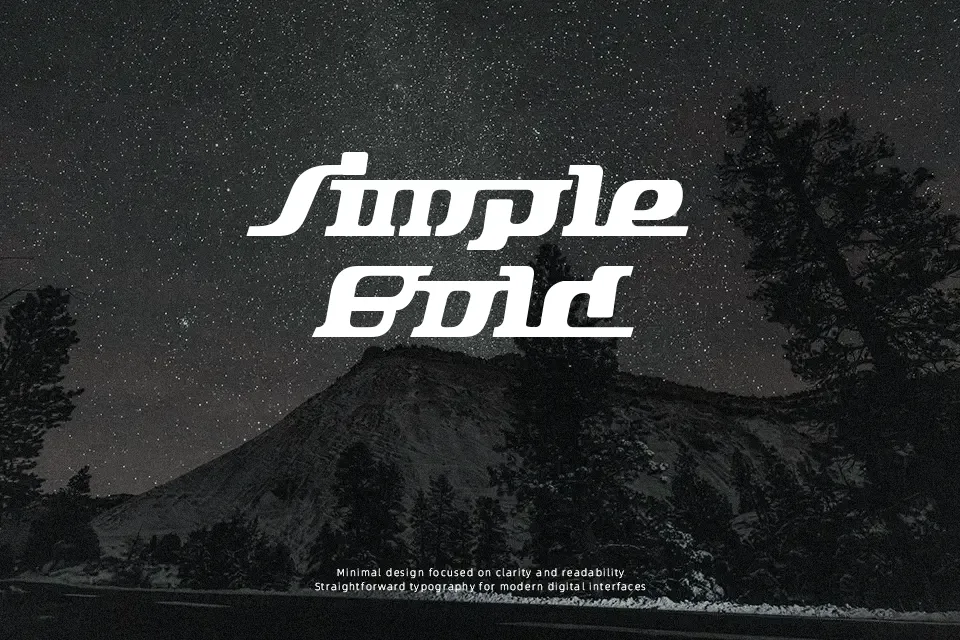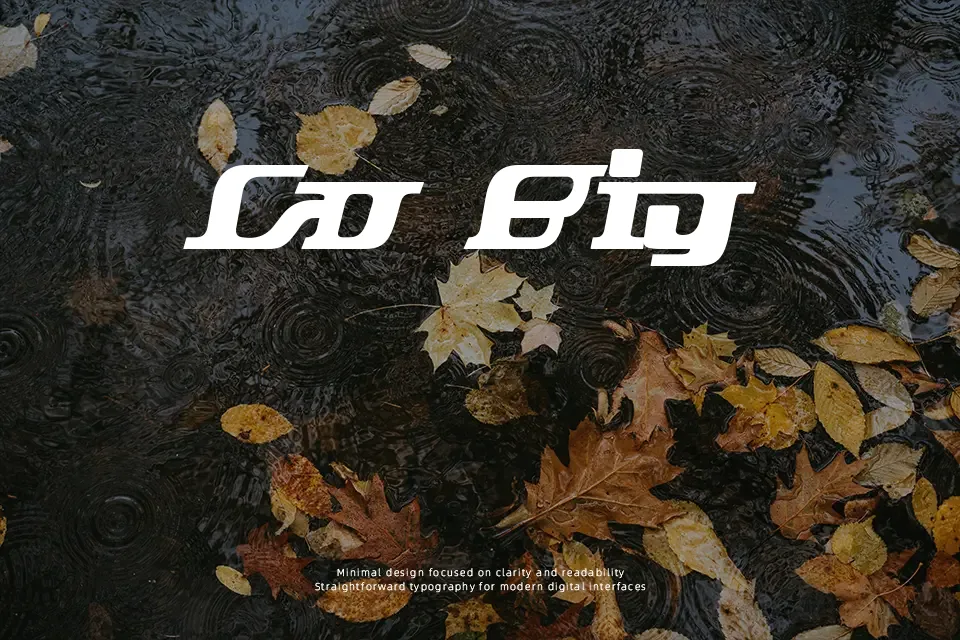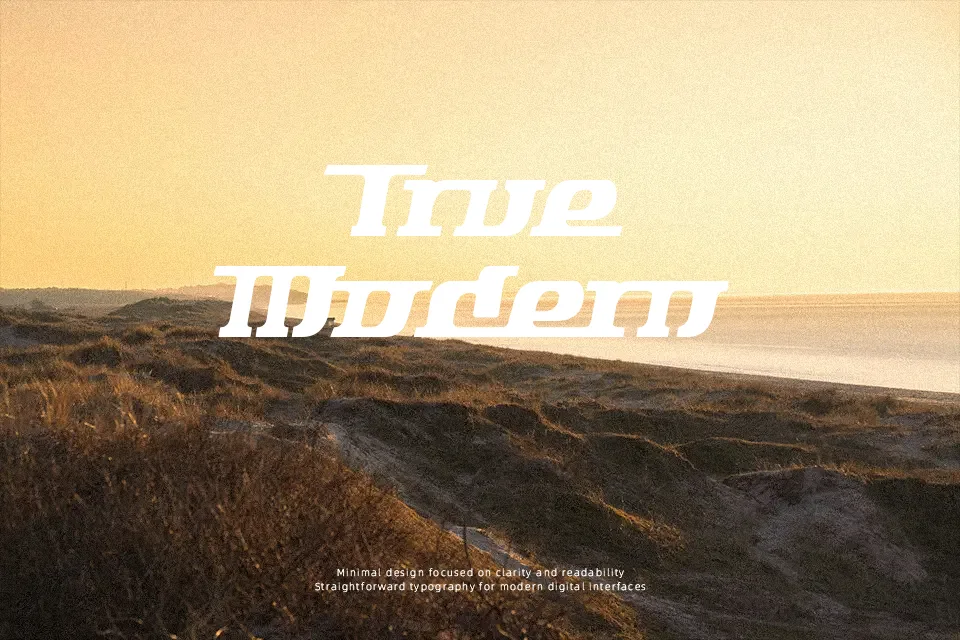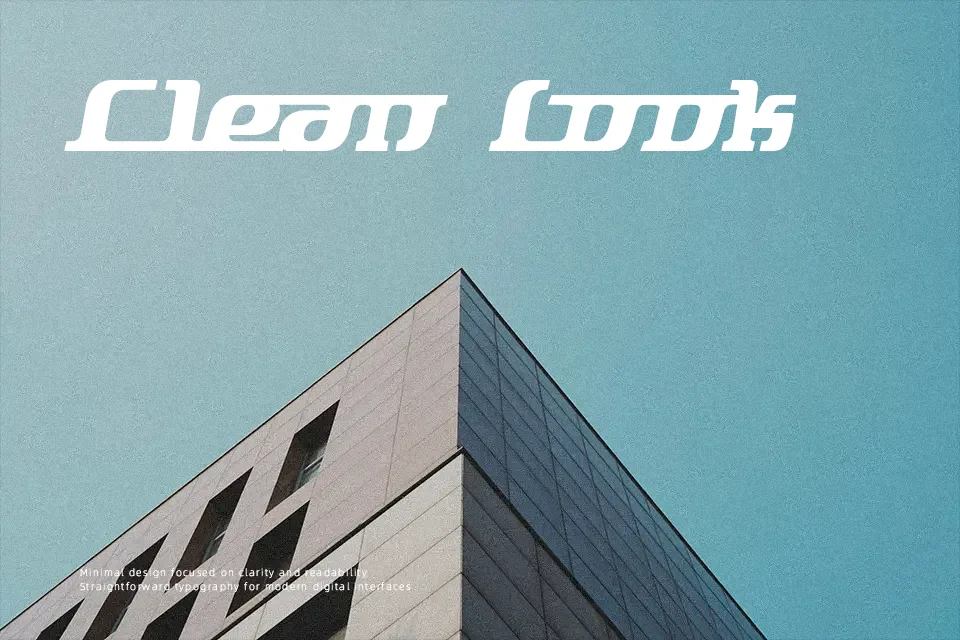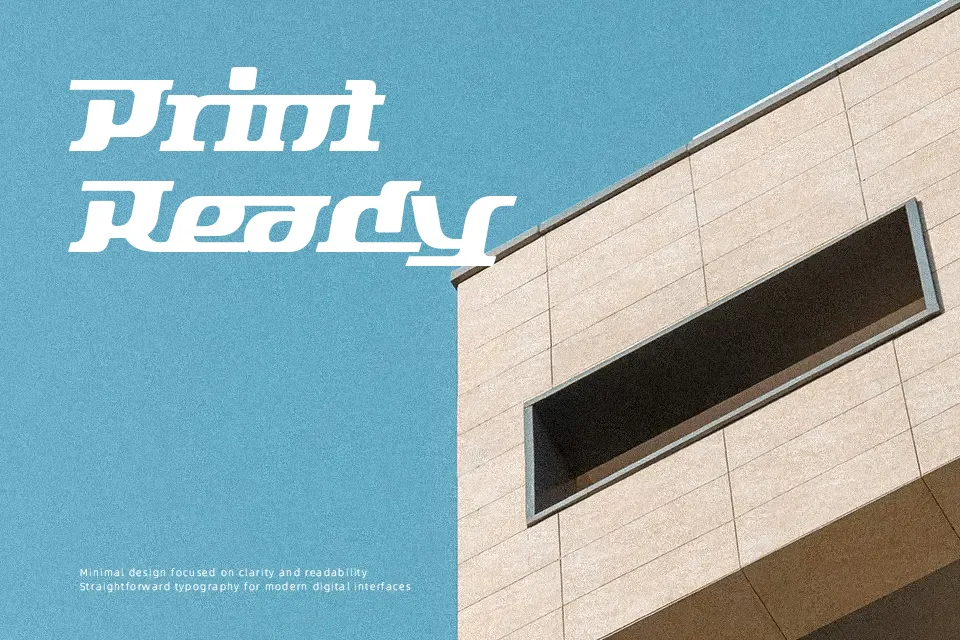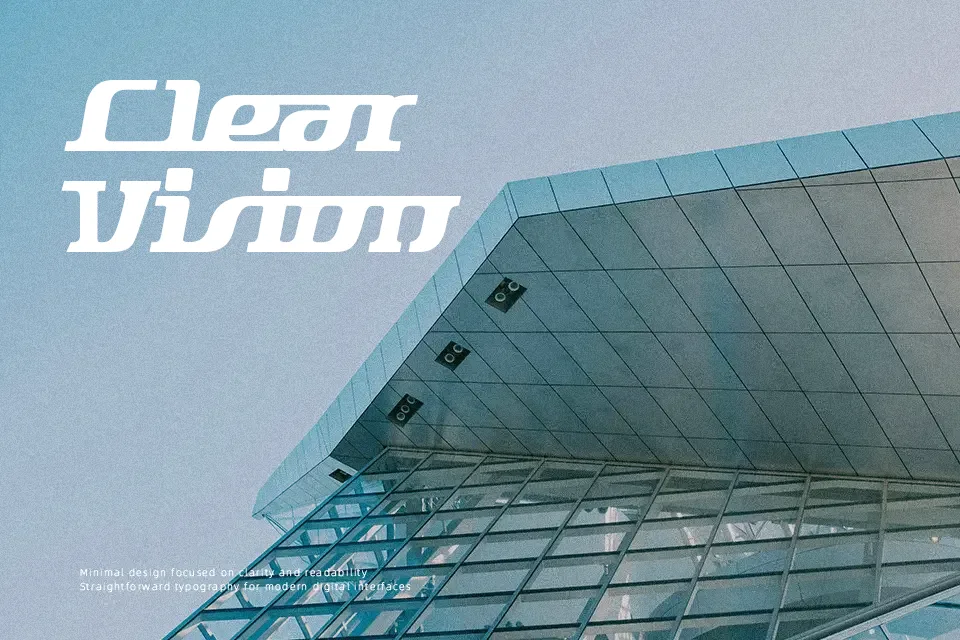
Starbat Font
Designed by Apostrophic Labs
Starbat Font is distinguished by substantial solid strokes, angular geometries, and an adventurous graphic personality built for immediate visual impact. The letterforms display wide proportions alongside tight character spacing that creates a dense typographic block in short headline arrangements. Stroke weight remains consistently heavy throughout the glyph set, providing strong prominence in poster layouts, digital gaming graphics, and merchandise branding. However, the heavy density and intricate silhouettes significantly reduce reading comfort when set at small sizes. The design performs best when given generous surrounding whitespace at large display scales, making it less suitable for continuous paragraphs or compact user interface text.
Best For: sci-fi event posters,video game title screens,apparel graphics,merchandise branding
Not Ideal For: long paragraph text,small interface labels,technical documentation,dense editorial layouts
Perfect for branding, film, and gaming, with a bold and decorative style.